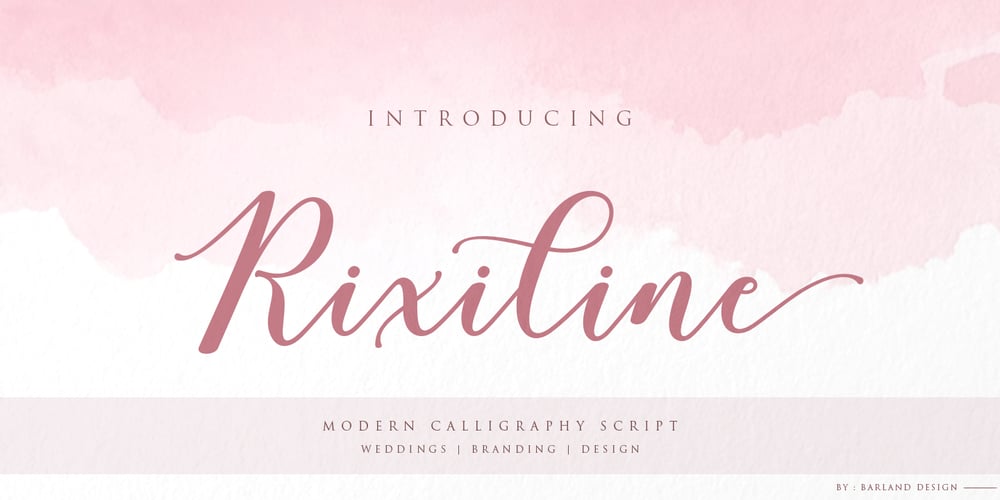
Rixiline Font Family was designed by Barmawi and published by Creative Lafont. Rixiline contains 2 styles and family package options. Introducing Rixiline Script, a unique blend of classic and modern font. imperfect style ups and downs, like a dance letters, smooth, clean and simple. Rixiline Script perfect for wedding, event, invitation, escort card, clothes, display, logos, quotes, slider blog, custom address, stamps, packaging, greeting card, etc.Rixiline Script comes with a complete set of standard characters, eastern diacritic symbols, consist 917 glyphs in total, and alternative characters as OpenType features to play with. The alternative characters were divided into several OpenType features such as Ligature and Stylistic Sets. You can create an attractive message by using the alternate characters in your design.The ZIP file are include the following:WebfontFeatures Rixiline Script : Basic Latin A-Z and a-z Numbers & Punctutation Symbols Stylistic Set Lots of Swashes, Ligatures & Alternates Script 917 Glyphs PUA Encode (Specially Coded Fonts) Support Latin Pro Character If you don’t have a program that supports OpenType features such as Adobe Illustrator and CorelDraw X Versions, you can access all the alternate glyphs using Font Book (Mac) or Character Map (Windows).Don’t forget to check out other cool fonts on our store and wait for new fonts.Follow our shop for upcoming updates including additional glyphs and language support. feel free to send me a message, comment, like and share.If you have any question, don’t hesitate to contact me by email.Thank You